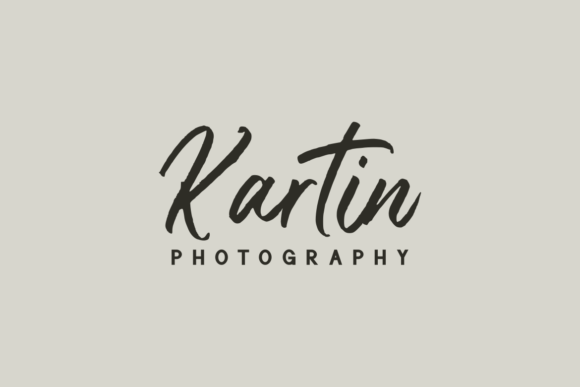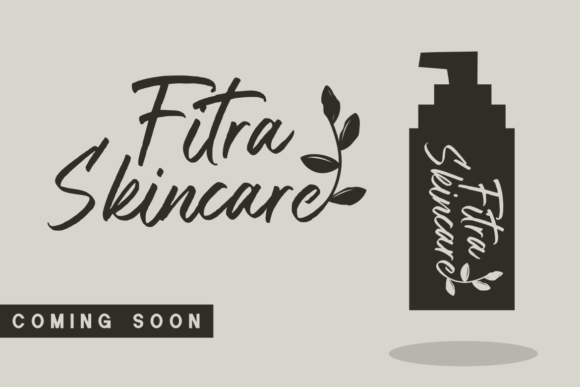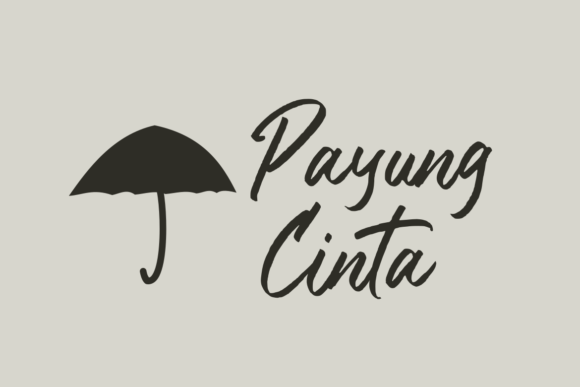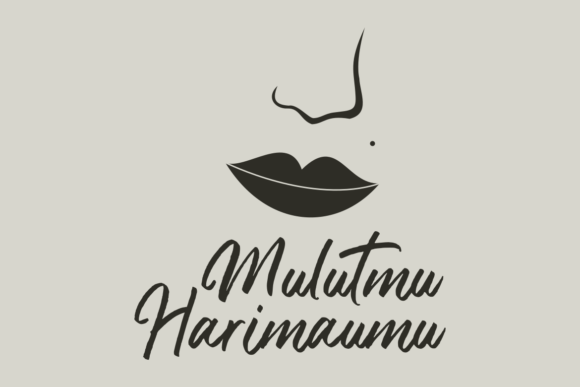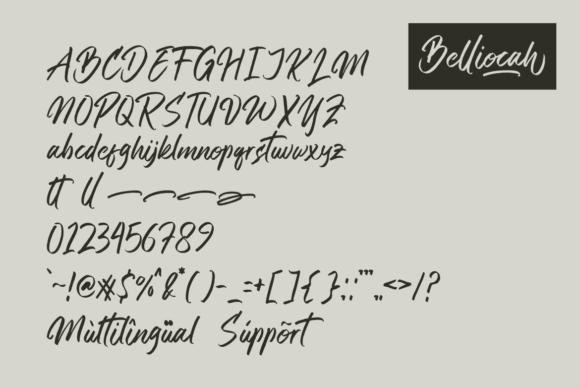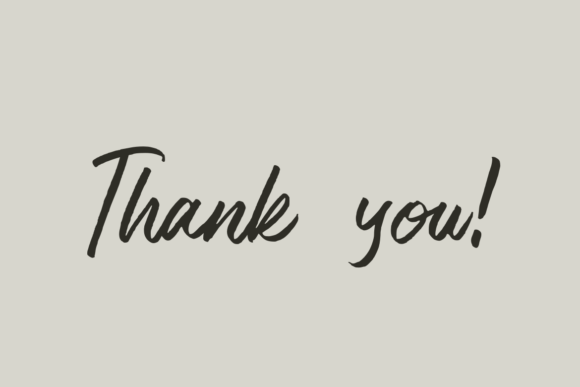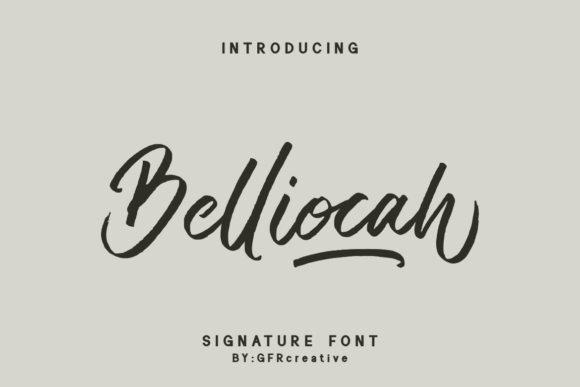
Belliocah Font: Elevate Your Designs with Elegance and Sophistication
In the world of typography, a font can make or break a design. For designers and crafters seeking to add a touch of luxury and refinement to their projects, the Belliocah font is an exceptional choice. This chic, refined script font emanates sophistication and elegance, making it the perfect match for a wide range of applications.
The Characteristics of Belliocah Font
Belliocah is more than just a beautiful font; it’s a comprehensive typographic experience. Its stylish alternates and ligatures are designed to enhance the aesthetic appeal of any project, from branding and advertising to packaging and digital media. Whether you’re working on a high-end fashion brand, a luxury product, or a sophisticated event, Belliocah provides the perfect typographic solution.
One of the standout features of the Belliocah font is its PUA (Private Use Area) encoding. This means that users can access all glyphs and swashes with ease, allowing for greater flexibility and creativity in design. PUA encoding ensures that you can unlock the full potential of the Belliocah font, making it simple to incorporate into your projects and customize to your heart’s content.
Why Choose Belliocah Font?
There are several reasons why designers and crafters are drawn to the Belliocah font:
- Elegance and Sophistication: Belliocah exudes a sense of luxury and refinement, making it ideal for high-end projects.
- Versatility: With its range of stylish alternates and ligatures, Belliocah can be used across various design applications.
- Easy to Use: Thanks to PUA encoding, accessing and customizing Belliocah is straightforward.
- Unique Swashes: The font’s swashes add an extra layer of elegance and personality to your designs.
Applications of Belliocah Font
The versatility of Belliocah makes it suitable for a multitude of design projects, including:
- Branding and Logo Design: Create a lasting impression with a sophisticated and elegant brand identity.
- Stationery and Packaging: Elevate your stationery and packaging designs with a touch of luxury.
- Digital Media: Use Belliocah in digital advertising, social media graphics, and website headers to convey elegance and sophistication.
- Wedding and Event Design: Make your wedding invitations, menus, and event materials truly unforgettable with Belliocah.
Tips for Using Belliocah Font Effectively
To get the most out of the Belliocah font, consider the following tips:
- Mix and Match: Experiment with different alternates and ligatures to create a unique look.
- Pair with Contrasting Fonts: Combine Belliocah with a more straightforward font to create visual interest.
- Utilize Swashes: Don’t be afraid to add swashes to give your text a more personalized touch.
- Adjust Kerning and Tracking: Fine-tune the spacing between letters for optimal readability and aesthetic appeal.
Belliocah font is a stylish and refined script font that brings a level of sophistication and elegance to any design project. Its range of alternates, ligatures, and swashes, combined with PUA encoding for easy access, make it an invaluable tool for designers and crafters. Whether you’re aiming to create a luxurious brand identity, design beautiful stationery, or craft memorable digital content, Belliocah is the perfect choice. Elevate your designs with the elegance and sophistication that Belliocah has to offer.